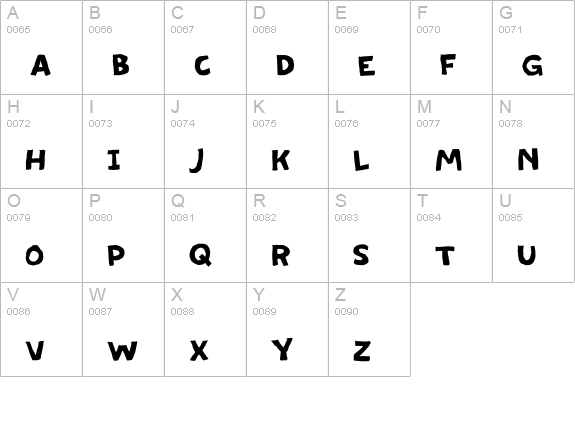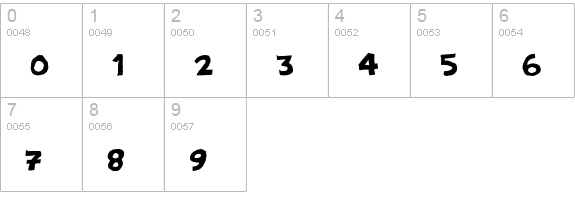
PFAmateur-FlatSolid font is a charming and versatile typeface that exudes a sense of simplicity and modernity. With its clean lines and rounded edges, this font is perfect for a wide range of design projects, from branding to digital media. The solid, flat design adds a contemporary touch to any layout, making it a popular choice for both print and online applications. What sets PFAmateur-FlatSolid font apart is not only its aesthetic appeal, but also the fact that it is available for free download at FontsMarket.com. This means that designers and creatives can easily access this stylish font without having to worry about any licensing fees or restrictions. Whether you're working on a personal project or a professional design, PFAmateur-FlatSolid font is a fantastic option that combines style and accessibility in one delightful package.